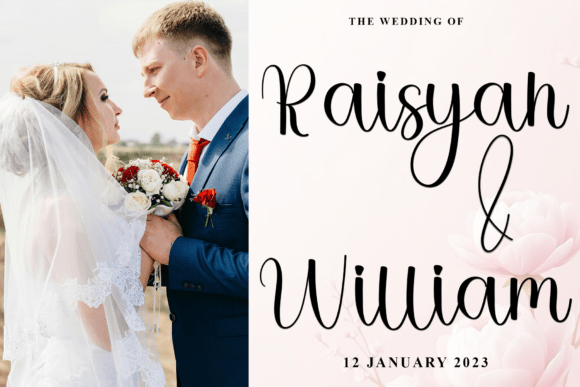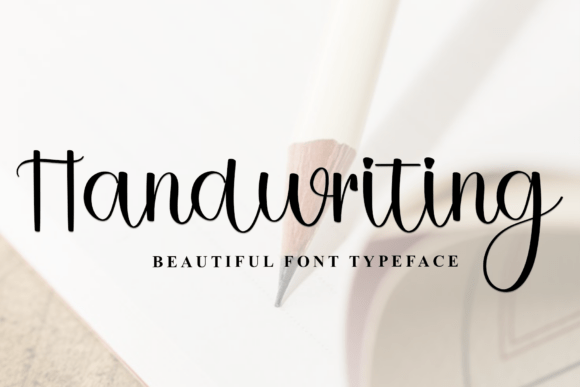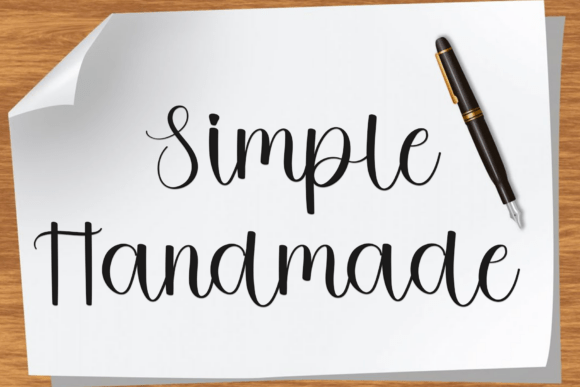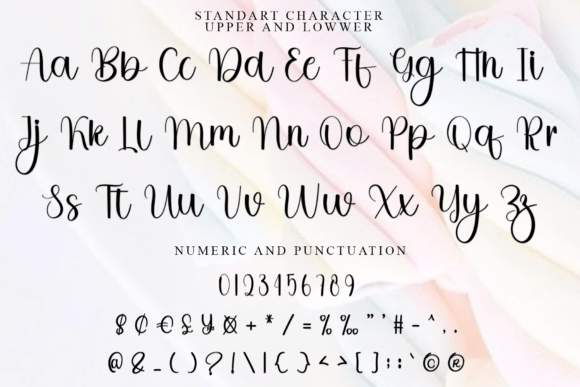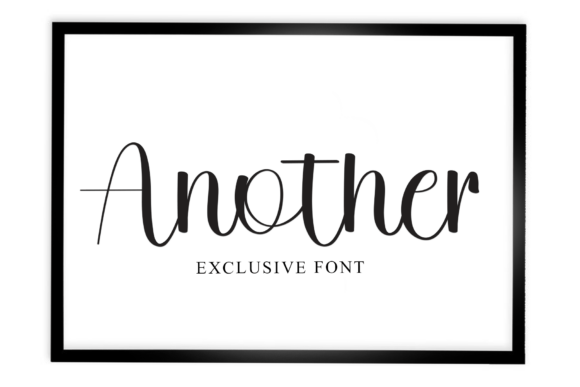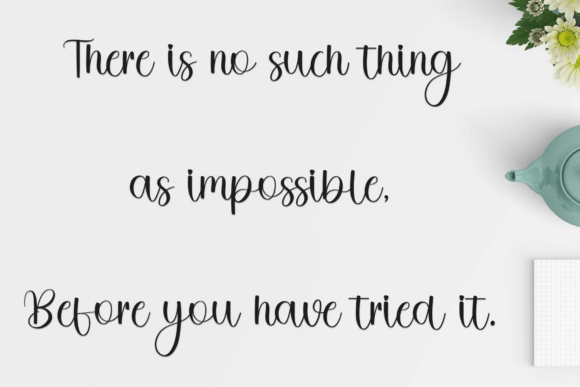
Discover the Charm of Autumn Yesterday Font: Elevate Your Designs with a Unique Touch
Are you on the lookout for a font that adds a special touch to your design projects? Look no further than the Autumn Yesterday Font. This beautiful, eye-catching font is designed with a soft, unique touch that sets it apart from more traditional fonts. Its distinctive strokes give it a special character, making it not only meaningful but also incredibly versatile for future use.
What Makes Autumn Yesterday Font Stand Out?
The Autumn Yesterday Font boasts a range of features that make it an ideal choice for designers and crafters alike. Here are just a few reasons why this font is making waves in the design community:
- Unique and Distinctive: The font’s soft and unique touch sets it apart from more common fonts, offering a fresh perspective for your designs.
- Versatile: With its special character, Autumn Yesterday Font is suitable for a wide range of projects, from crafts to creative works, and everything in between.
- Comprehensive Character Set: The font includes a variety of characters, ensuring that you have everything you need to bring your designs to life.
Autumn Yesterday Font is more than just a pretty face; it’s a practical tool for designers and crafters looking to elevate their projects. Whether you’re working on:
- Graphic Design: Add a touch of elegance and sophistication to your posters, brochures, and digital media.
- Crafts: From handmade cards to DIY decorations, this font is perfect for adding a personal touch to your creations.
- Web Design: Use Autumn Yesterday Font to create visually appealing website headers, blog posts, and more.
Its natural font style and wide range of characters make it an excellent choice for any project where you want to make a lasting impression.
Enhance Your Designs with Autumn Yesterday Font
Incorporating Autumn Yesterday Font into your designs can have a profound impact on how your work is perceived. Here are a few ways this font can enhance your projects:
- Appeal to a Wide Audience: The font’s unique yet approachable style makes it appealing to a broad audience, ensuring that your designs resonate with viewers across different artistic and creative fields.
- Stand Out in a Crowded Market: In a world where design is more competitive than ever, using a distinctive font like Autumn Yesterday can help your work stand out.
- Flexibility Across Platforms: Whether your designs will be viewed on a screen or in print, this font maintains its charm and legibility, ensuring consistency across various mediums.
Autumn Yesterday Font is more than just a typeface; it’s a design element that can transform your projects, adding a layer of uniqueness and appeal. Whether you’re a professional designer or a crafting enthusiast, this font is sure to become a staple in your creative toolkit.
So why wait? Dive into the world of creative possibilities with Autumn Yesterday Font and discover how this beautiful, eye-catching font can elevate your designs to new heights.